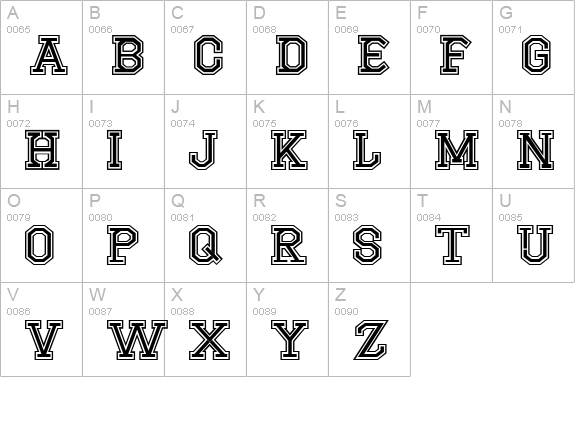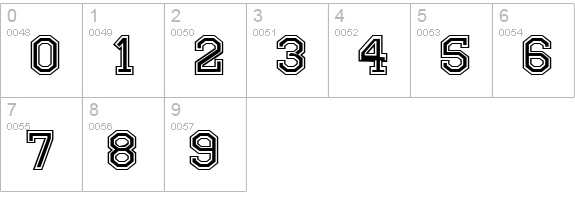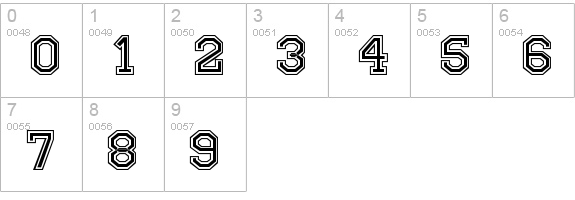
CF Montreal High School Regular Font Details
CF Montreal High School Regular is the standard, neutral variant in the CF typeface family \xE2\x80\x94 well suited to general body text, paragraphs, and standard typographic work.
Introducing CF Montreal High School Regular font, a stylish and versatile typeface designed to elevate your design projects to new heights. With its clean lines and modern aesthetic, this font is perfect for a wide range of applications, from branding and advertising to web design and print materials. CF Montreal High School Regular font exudes a sense of professionalism and sophistication, making it ideal for corporate presentations, business cards, and professional documents. Its readability and legibility ensure that your message is conveyed effortlessly, while its unique character adds a touch of personality and charm. What sets CF Montreal High School Regular font apart is its accessibility. It is freely available to download at FontsMarket.com, allowing designers and enthusiasts alike to get their hands on this exceptional typeface without any cost. This means that you can enhance your designs with a high-quality font without breaking the bank. Whether you're a seasoned designer or just starting out, CF Montreal High School Regular font is a valuable addition to your font library. Its versatility, elegance, and the fact that it is freely available make it a must-have for any design project. Download it today at FontsMarket.com and unleash the full potential of your creativity.